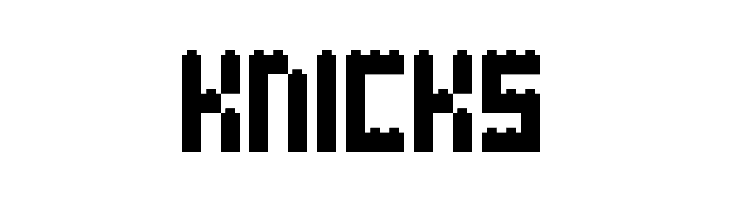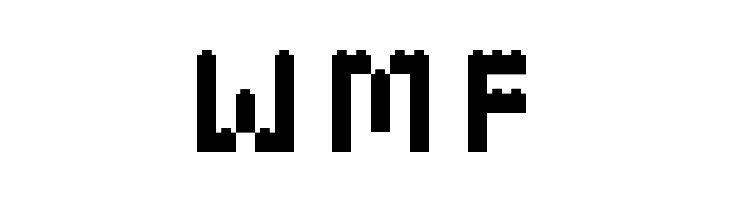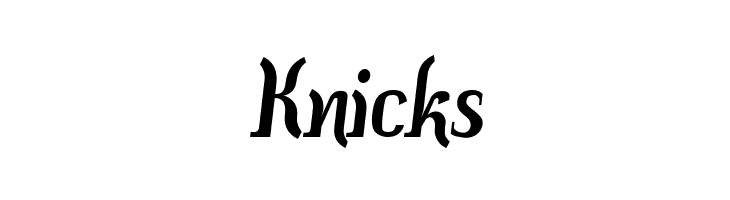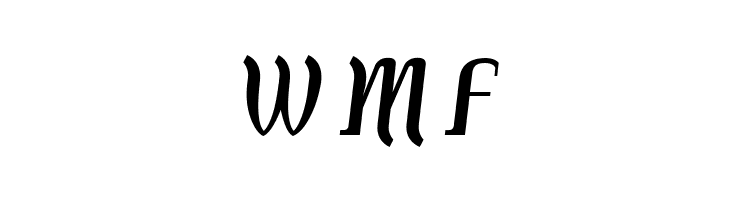
A bold, energetic handwritten font with expressive strokes and a lively appearance.
A bold, energetic handwritten font with fluid strokes.
A bold, blackletter-inspired font with ornate and dramatic styling.
A bold, oblique font with a blackletter influence, featuring sharp angles and dramatic curves.
A bold, condensed font with sharp, angular lines and dramatic serifs.
A decorative hollow font with bold outlines and artistic flair.
A bold, decorative font inspired by the Jugendstil movement, featuring intricate and artistic letterforms.
A pixelated font with a retro digital aesthetic.
A bold, pixelated font ideal for retro digital designs.
A modern, rounded sans-serif font with a clean and approachable style.
A bold, playful font with a cartoonish, three-dimensional style.
A bold, geometric font with a strong, blocky appearance.
A playful dingbat font with office-themed icons like push pins and notes.
A bold, geometric font with a modern and striking design.
A bold, geometric font with a modern, industrial feel.
A modern, geometric sans-serif font with clean lines and uniform stroke width.
A modern, geometric sans-serif font with clean lines and consistent stroke width.
A modern, geometric sans-serif font with clean lines and uniform stroke width.
A bold, geometric font with a modern, industrial style and distinctive cut-out sections.
A bold, geometric stencil typeface with a modern, industrial aesthetic.
A bold, stencil-like font with high contrast and industrial appeal.
A modern, geometric font with clean lines and a minimalist design.
A modern, geometric stencil font with clean lines and sharp angles.
A modern, geometric sans-serif font with clean lines and consistent stroke width.